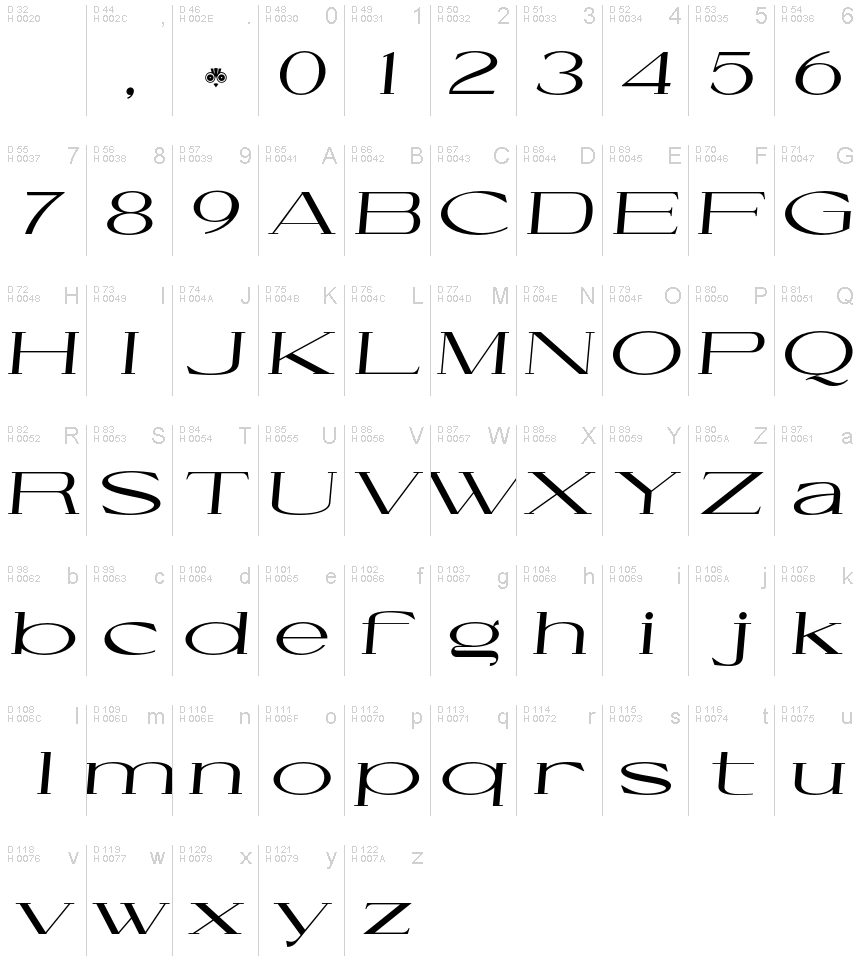
Cellofy SemBd ExtExp Ita font from the Cellofy family by Owlking Project showcases a charming serif style with an inviting expanded design. Its distinct curves and elegant italics ensure a unique visual appeal, perfect for headlines and decorative purposes.
This free font offers an expressive touch to any project, making it ideal for personal projects like invitations, posters, or creative branding. Embodying bold sophistication, Cellofy is a must-have for designers seeking to infuse their work with character and flair.
Cellofy SemBd ExtExp Ita